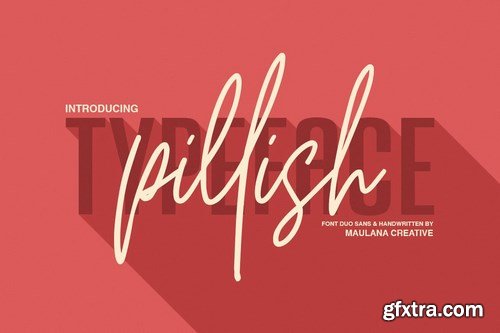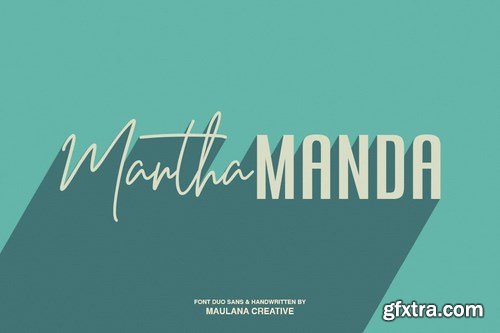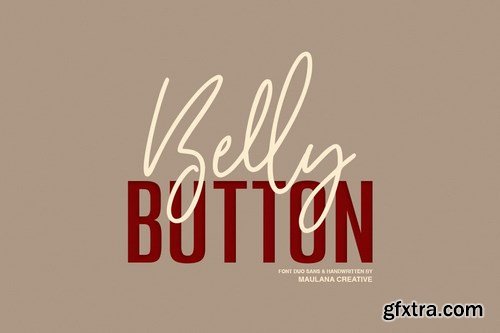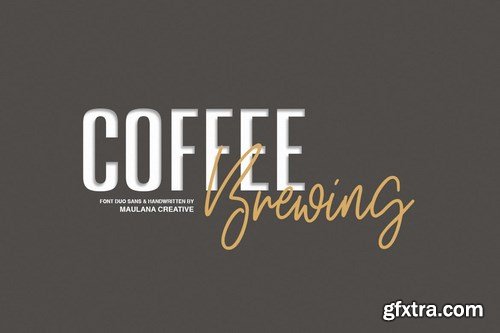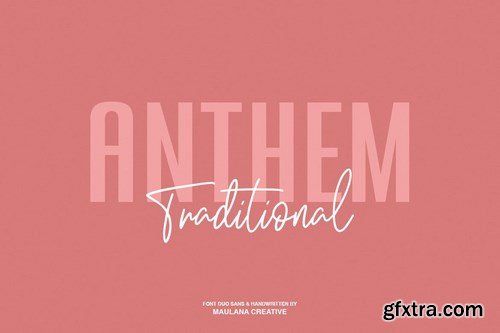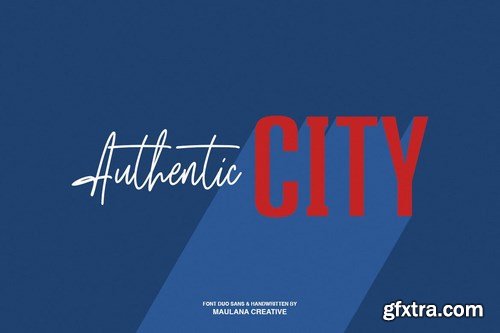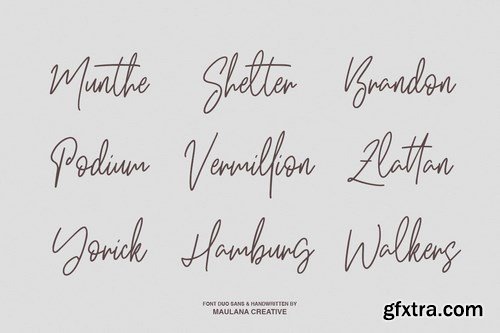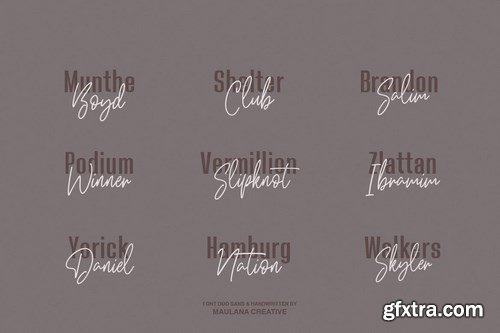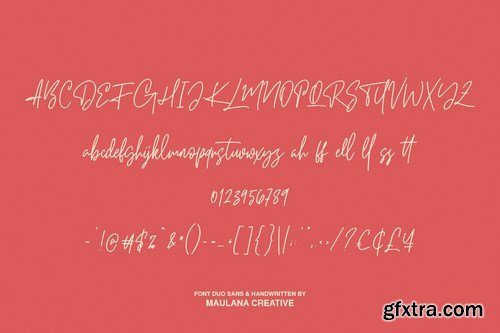
Give your designs an authentic handcrafted feel. "Pillish" is perfectly suited to signature, stationery, logo, typography quotes, magazine or book cover, website header, flyer, clothing, branding, packaging design and more.